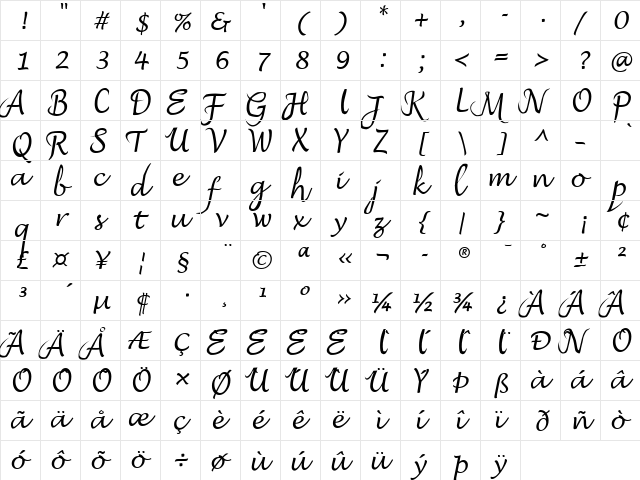
Grevinnans Medium
Design Context for Grevinnans Typeface
Grevinnans is a composed and adaptable typeface that performs quietly and consistently across a wide range of design contexts.